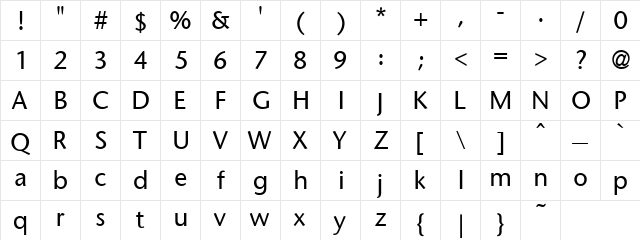
FasseSans Regular
Design Context for FasseSans Typeface
FasseSans takes a measured approach to typography — its balanced proportions and neutral character make it a reliable workhorse for both digital and print work.
Pro Tip: Use FasseSans in both headline and body roles to test its range before committing to a single application.